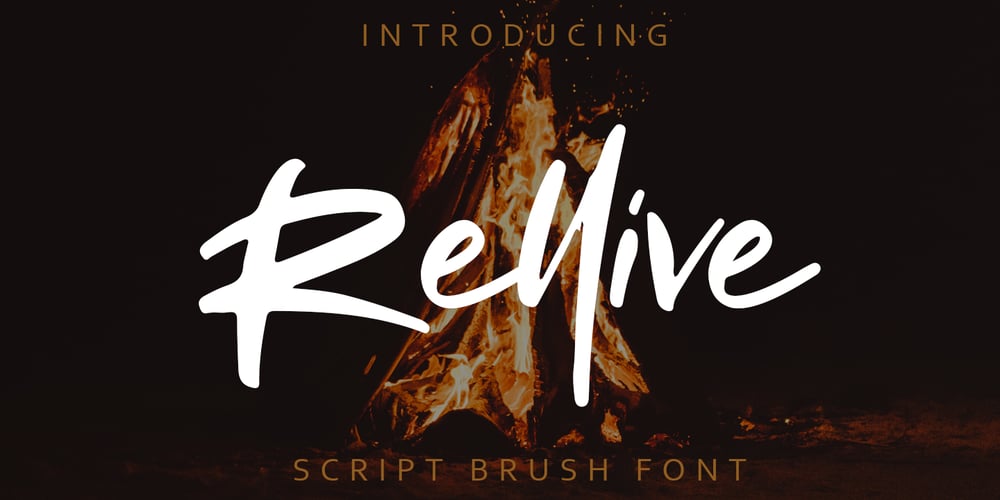
Rellive Font Family was designed by Asep Rendi and published by Arendxstudio. Rellive contains 1 styles and family package options. Rellive is a font with distinctive handwritten characters, and perfect for branding projects, logos, wedding designs, media posts, advertisements, product packaging, product designs, labels, photography, watermarks, invitations, stationery, and any project who need handwritten dishes. Features: • Character Set A-Z • Numerals & Punctuations (OpenType Standard) • Accents (Multilingual characters) • Ligature